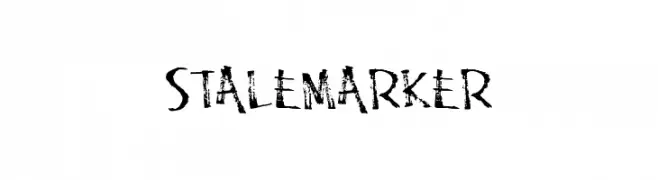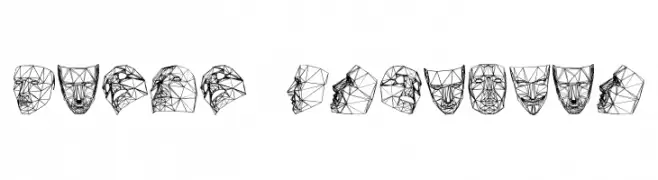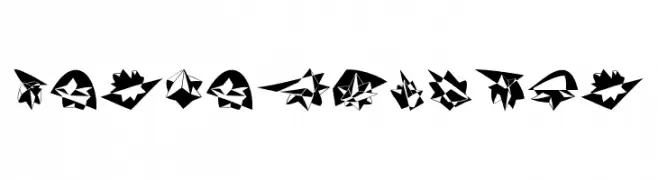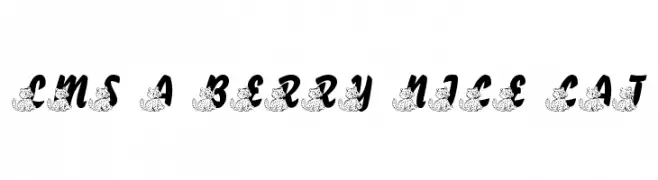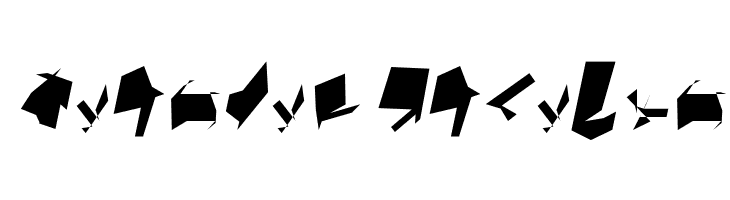
A bold, italicized font with a gradient effect and striped appearance.
A bold, italicized font with a futuristic and dynamic style.
A bold, distressed font with a grunge, hand-drawn style.
A playful, bold font with textured, dotted interiors and rounded edges.
Abstract 3D wireframe masks form each character, creating a unique and artistic display font.
An abstract, geometric font with sharp angles and fragmented shapes.
A modern, italicized font with sleek, angular characters.
A bold, playful handwritten font with dynamic strokes.
A playful font with bold letters and cartoon-style cats integrated into each character.